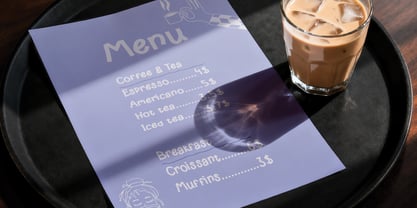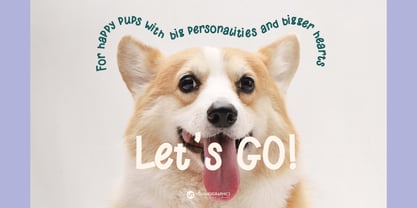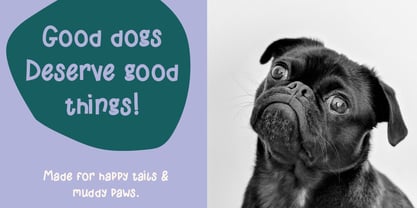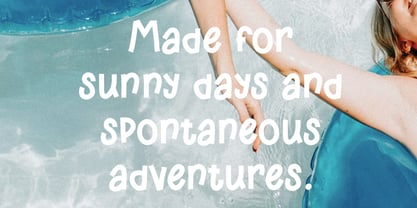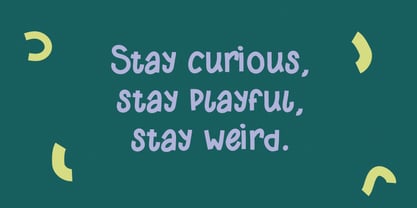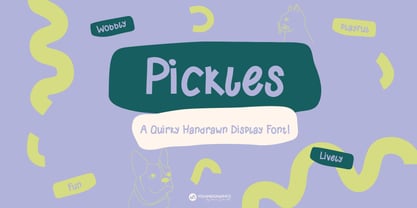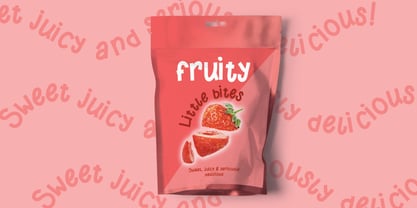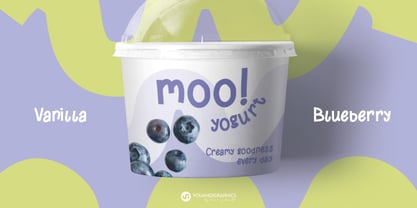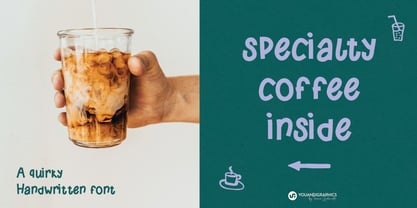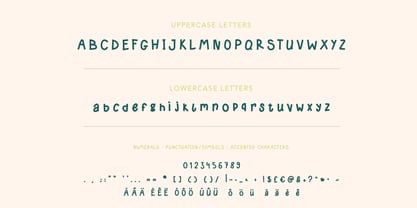
Pickles Display
by Youandigraphics
The Pickles Display Font Family was designed by Irene Demetri and published by Youandigraphics. Pickles Display contains 1 styles. More about this family
Pickles Display is a playful, quirky handwritten display font full of personality. With its bold, imperfect character and friendly handmade feel, it’s designed to bring a little fun and attitude to your projects.
Created with playful branding in mind, Pickles Display is especially suited to pet businesses, packaging, food brands, logos, labels, social media graphics, posters, and other projects that need a cheerful and distinctive touch.
Youandigraphics is an independent design studio and type foundry focused on creating distinctive, expressive typefaces with personality. With a background in graphic and visual communication design, my approach to type begins with the need of real-world design, creating fonts that are not only visually engaging, but also versatile and purposeful. My typefaces explore playful, handcrafted and contemporary forms, with a particular interest in display typography that brings character to brands and visual identities. I enjoy creating fonts that feel approachable, unexpected and full of personality, whether they are used for branding, packaging, editorial design, advertising or digital content. Each typeface is developed with attention to its shapes, rhythm and overall visual voice, balancing a strong aesthetic with practical usability. I believe good typography can give a brand an instant sense of character, and our goal is to create typefaces that help designers communicate with confidence, warmth and originality.